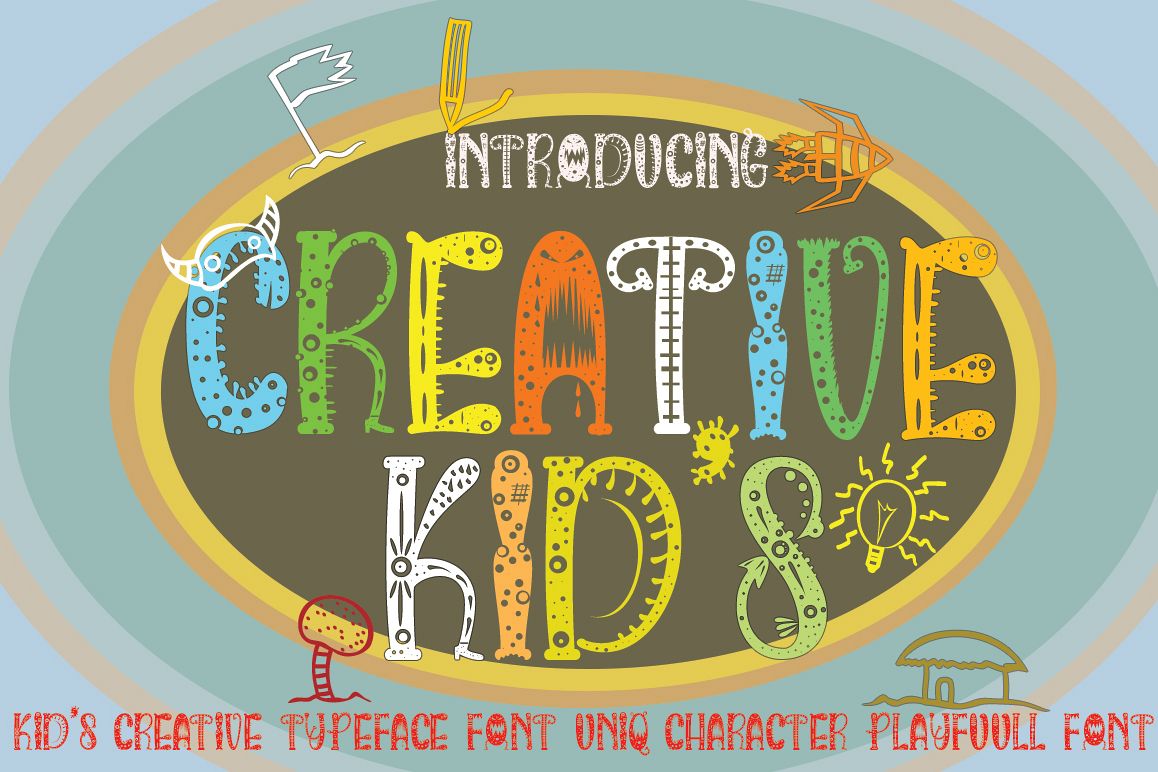
CREATIVE KIDS
CREATIVE KIDS extras
CREATIVE KIDS
CREATIVE KIDS This font was designed by handwriting, and it has a modern
and unique forms of calligraphy, special character and bonus extras